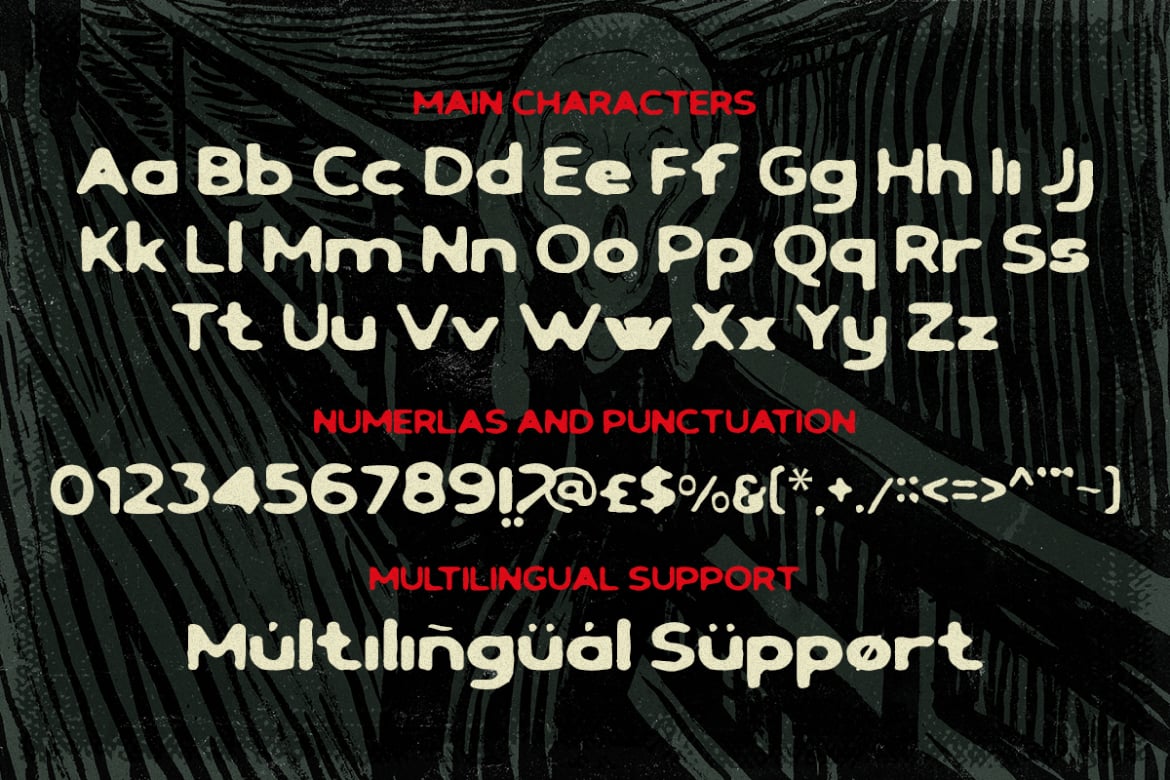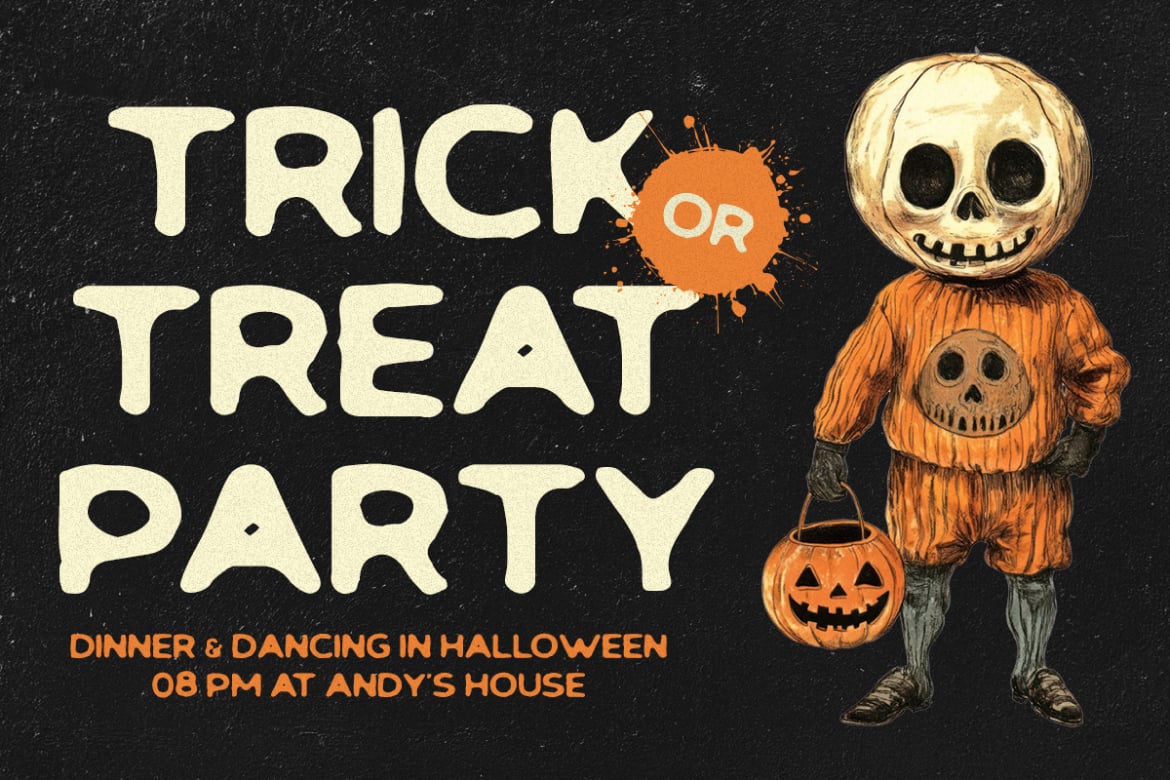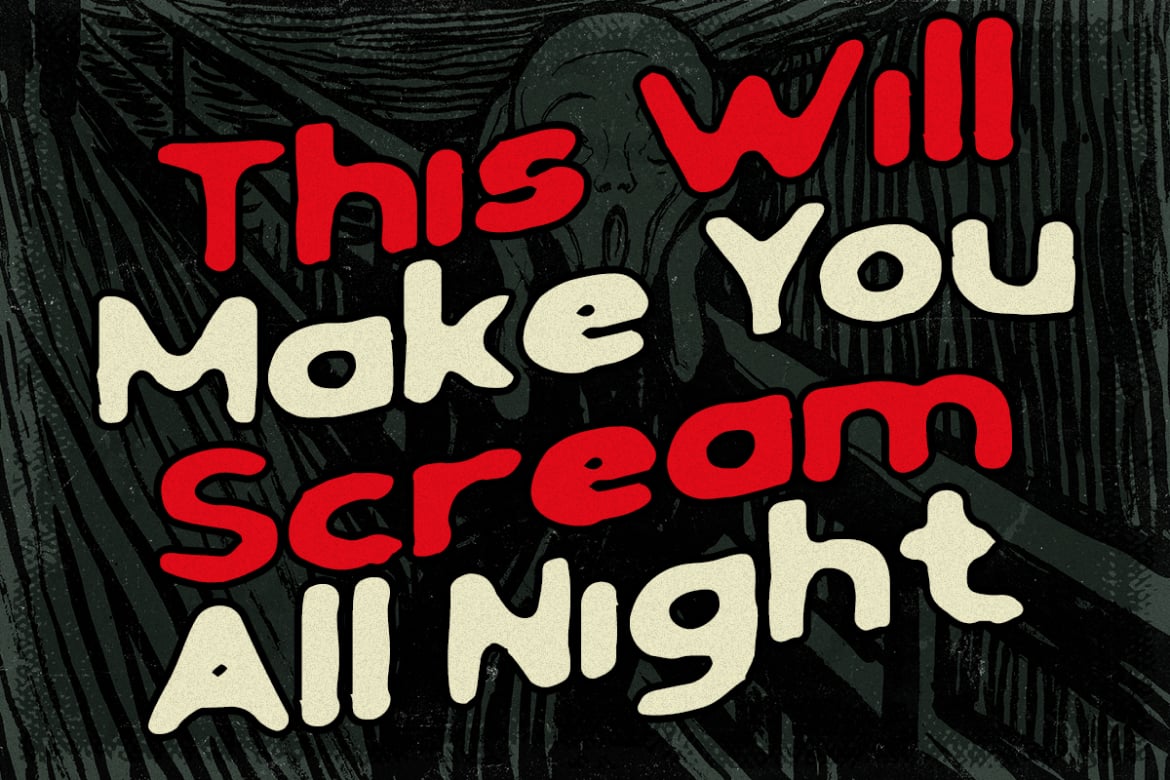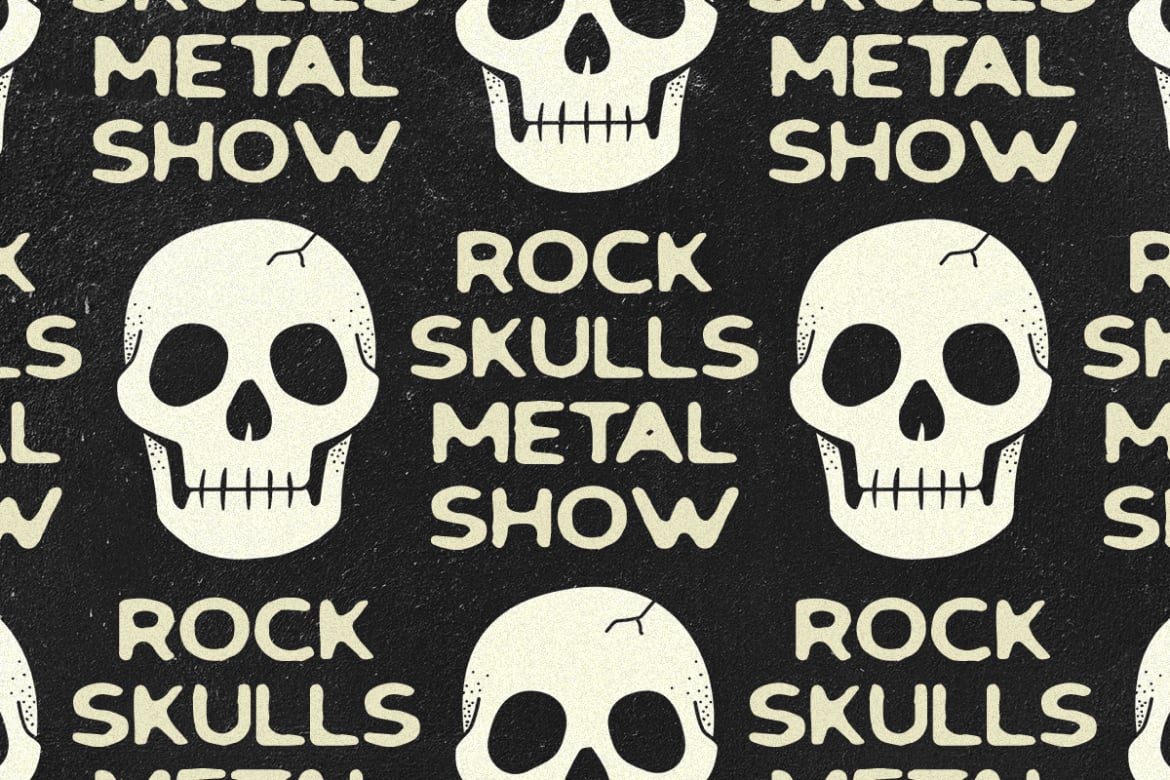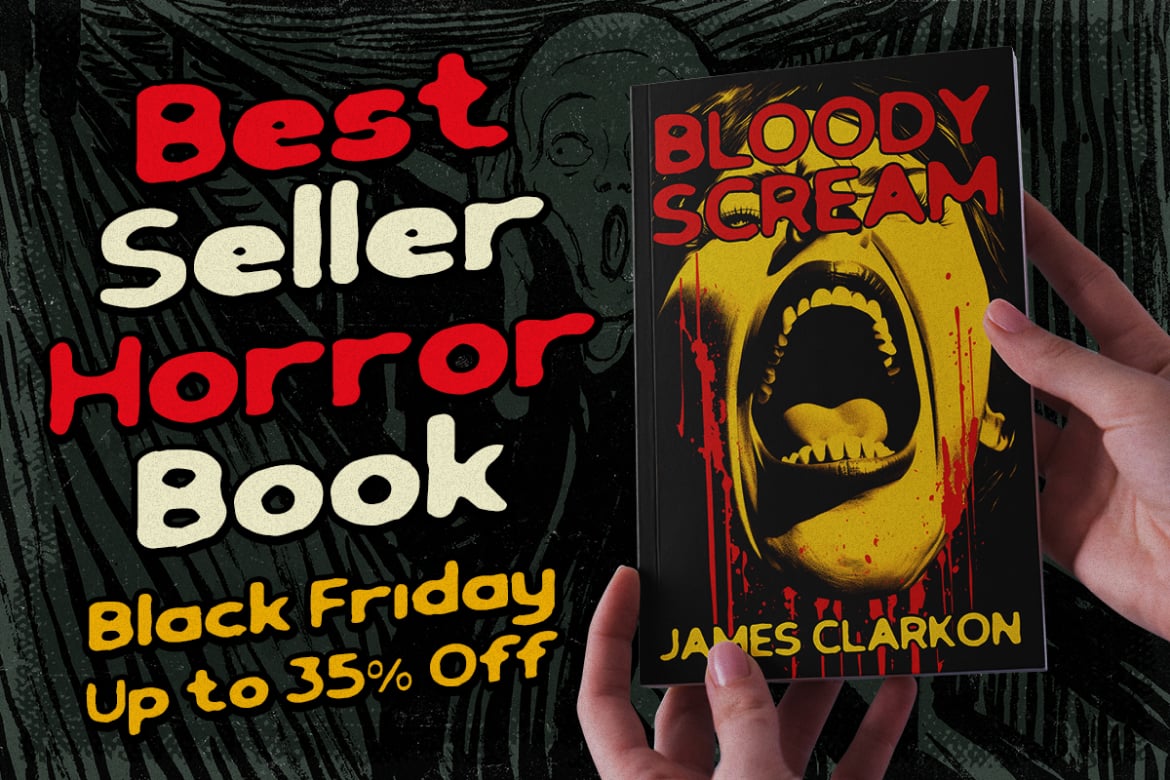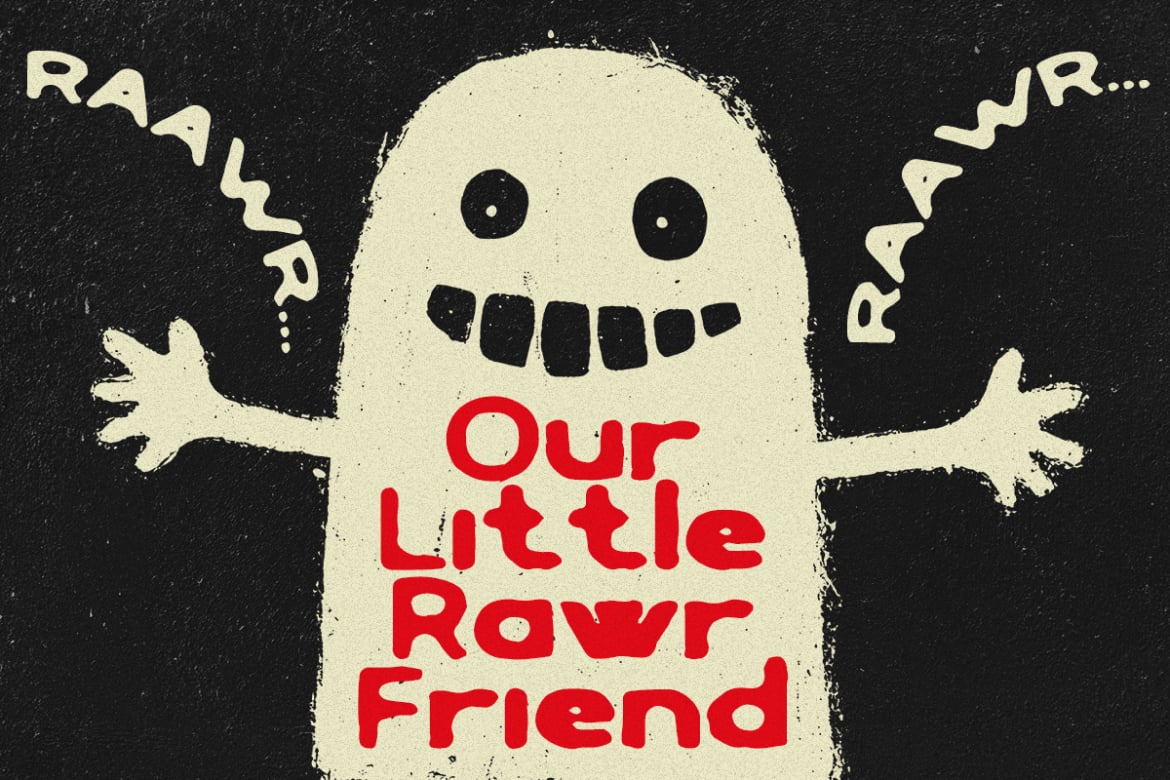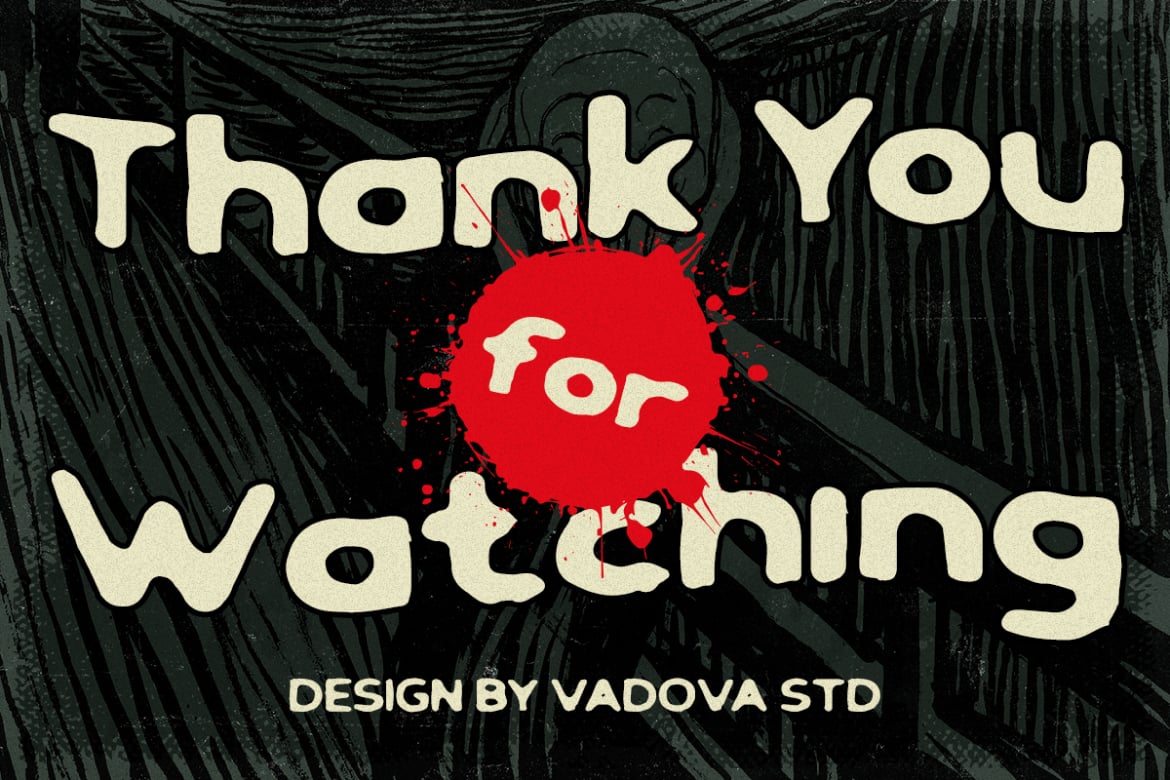
Black Scream Classic Horror Font
Elevate your designs with Black Scream Classic Horror Font, a horror-inspired typeface with a hand-drawn, eerie aesthetic. Its uneven, jagged edges and bold strokes create a chilling atmosphere, making it perfect for horror movie titles, spooky posters, Halloween-themed designs, and eerie branding. The font exudes a sense of fear and mystery, capturing the essence of classic horror and suspense. Whether used for dark-themed projects or retro horror aesthetics, Black Scream delivers a spine-chilling visual impact.
- Uppercase & Lowercase characters
- Numeral & Punctuations